Posters are one of the most effective visual communication media to deliver messages quickly. Whether we use them for event promotions, brand campaigns, or infographics, a poster should be able to appeal to the audience in mere seconds after seeing it. That’s why the text element has a crucial role in strengthening the visual message. Hence, bold display fonts for posters that we recommend here may be the best choice for your design to look appealing and full of personality.
Why bold display fonts, though? Well, this sort of font has a bold, solid, and distinctive character that helps boost visibility. It improves text readability even from a distance and creates a striking impression. Using bold display fonts for posters, rather than just being the text, will improve the visual identity and ensure that the design message is successfully delivered.
In this article, we have summarized the 10 best bold display fonts for posters that can inspire you. Each font comes with a distinctive style ranging from playful to elegant to professional, making them suitable for various design needs.
First on this list of bold display fonts for posters is Rainbow Night. It is a font with an elegant serif style that stands out for its bold letter shapes. Complete with stylistic alternates, Rainbow Night exudes an artistic appearance with intriguing visual variation. The strong contrast in its thickness combined with rounded-edge serifs also brings a classy look that feels friendly and playful at the same time. Additionally, the ligature features that connect certain letters make it look smoother and more professional.
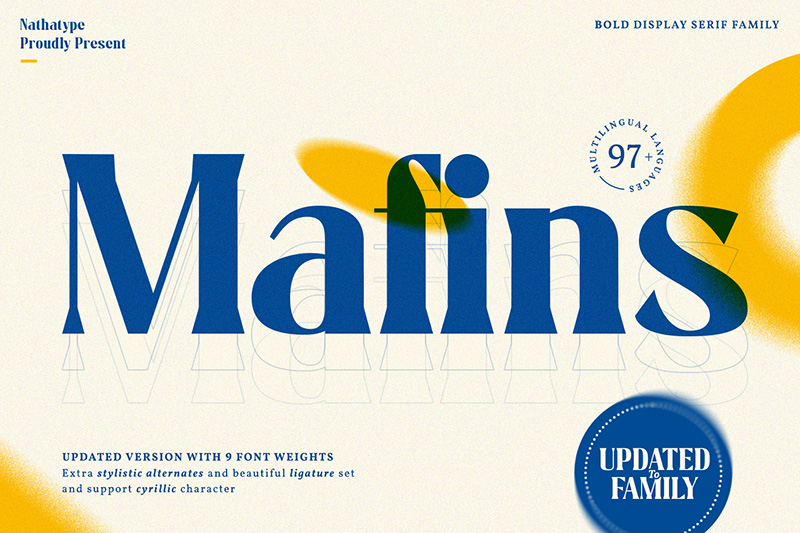
The strong contrast between thick and thin lines gives a dramatic appearance, while the small serif ends of the letters provide an elegant yet modern impression, making it one of the best bold display fonts for posters to highlight the main message. Mafins features stylistic sets, offering more varied letterforms and ligatures for more natural letter combinations. This font works perfectly for various design needs, including posters, logos, banners, magazine covers, printed products, and social media content.
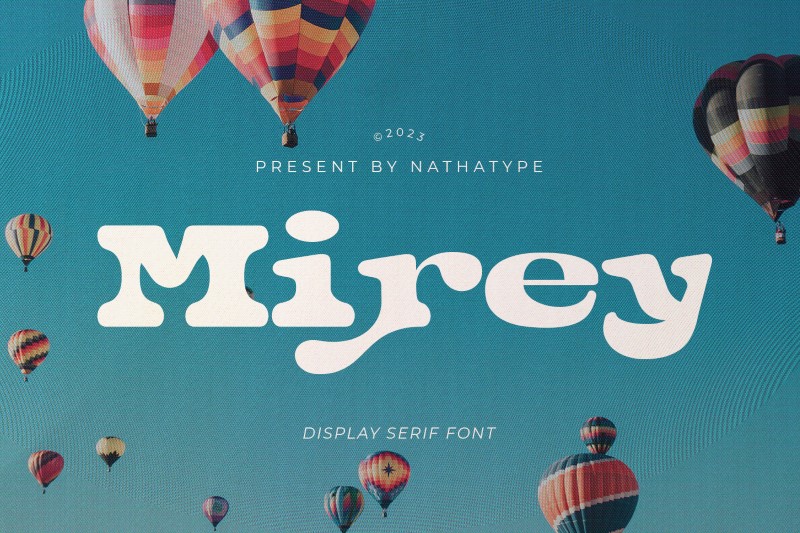
If you are looking for a font with a playful or casual vibe but that still maintains its modern and artistic look, then you must try Mirey. It is a display serif font with thick letterforms and smooth, rounded edges. As a result, this font looks playful and modern yet elegant at the same time, making any design that uses it feel more expressive. Mirey is suitable for titles, posters, branding, or visually strong and expressive designs.
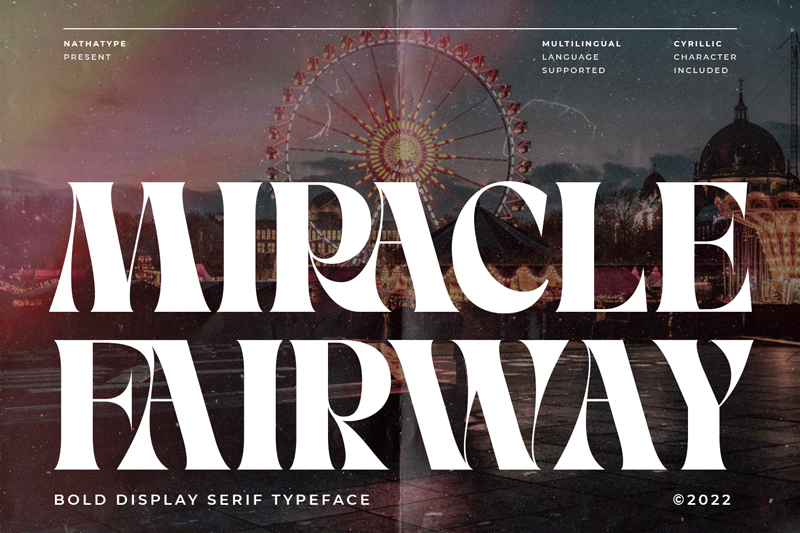
Miracle Fairway is a bold display serif font with contrasting letterforms. This font draws inspiration from the modern Art Deco style, showcasing a distinctive and striking character. This font, which includes ligature capabilities and multilingual support, is adaptable to meet global design needs. Because of its legibility, Miracle Fairway works well for large text such as headlines, posters, logos, or main visual elements that require a powerful and engaging appearance.
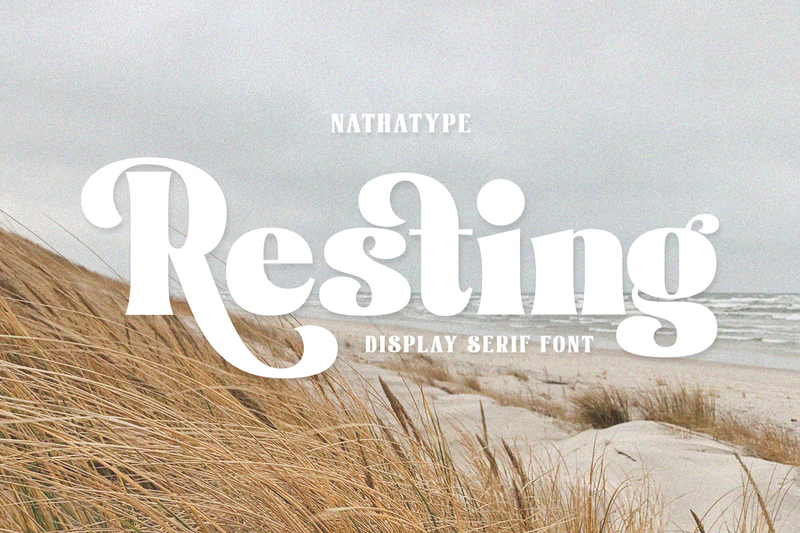
Resting is one of our top bold display fonts for posters that is ready to make your designs more vibrant, stand out, and last for a long time. Some of its letters adorned with unique decorative details provide a balance between a bold and flexible impression. This font is perfect for café posters, coffee shops, community events, casual branding, packaging, quotes, and social media designs.
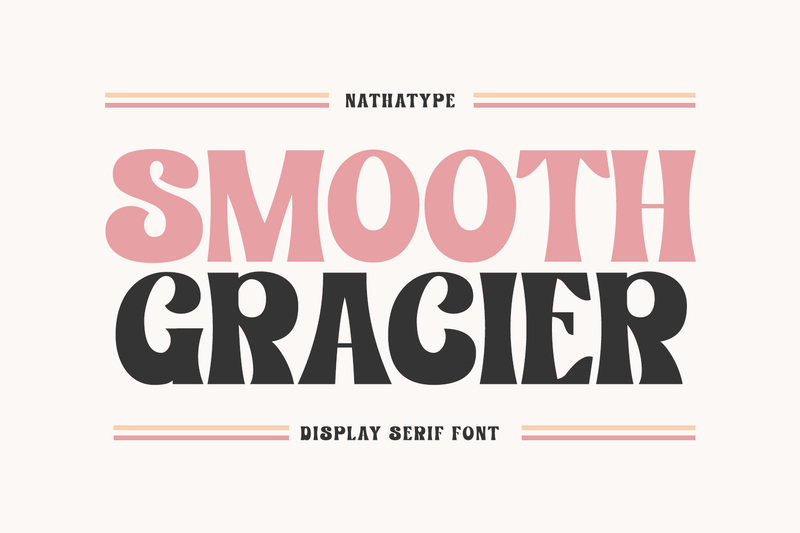
Smooth Gracier, like its name, radiates smoothness with its big and blocky letterforms, giving each character a retro vibe. Aside from that, the distinctive serif cuts and line contrast in the letters make it visually appealing. Smooth Gracier is adaptable to a wide range of design projects thanks to its stylistic sets and multilingual support. Smooth Gracier is perfect for retro posters, music designs, events, festivals, and humorous food and beverage branding, such as soda, snacks, and cookies.
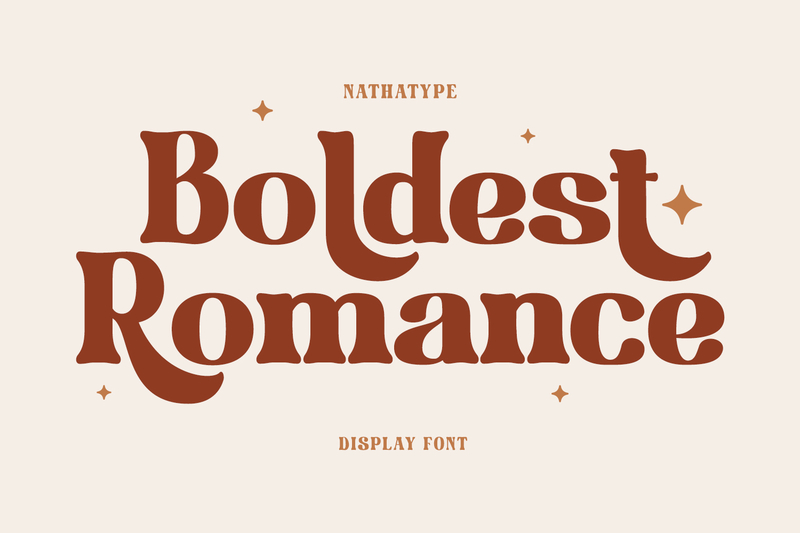
The next font in this list of bold display fonts for posters is Boldest Romance. It is a font with a casual vibe full of decorative characters. Boldest Romance is bold and dramatic, yet still looks artistic, as it has a retro-modern touch. As its name suggests, Boldest Romance brings a warm, relaxed, and slightly vintage vibe while also conveying a romantic impression. This font is also suitable for designs, such as branding, posters, banners, and logos, that want to appear friendly and playful yet still have a strong character.
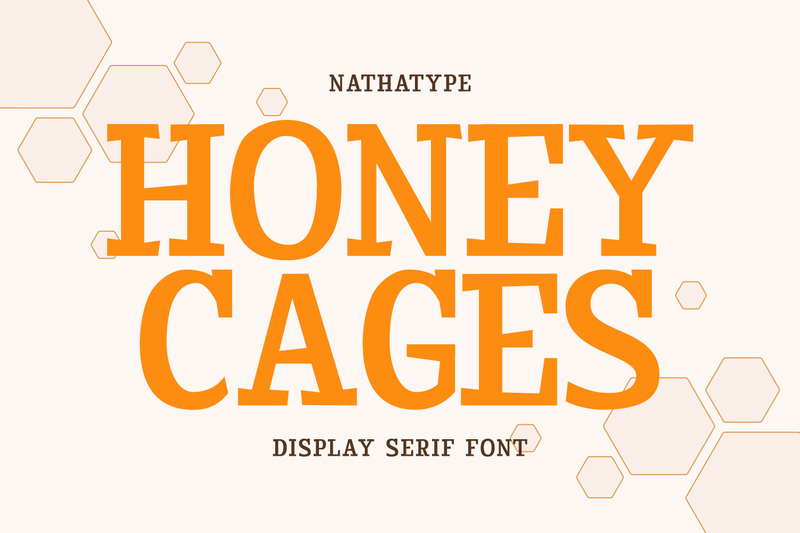
Among all the bold display fonts for posters, Honey Cages is a display serif font with a friendly, expressive, yet firm vibe at the same time. Additionally, Honey Cages has balanced letter proportions in shapes and consistent height and width, creating a simple, easy-to-read, bold, and professional appearance. Equipped with stylistic sets, ligatures, and multilingual support, Honey Cages offers extensive flexibility for various design needs.
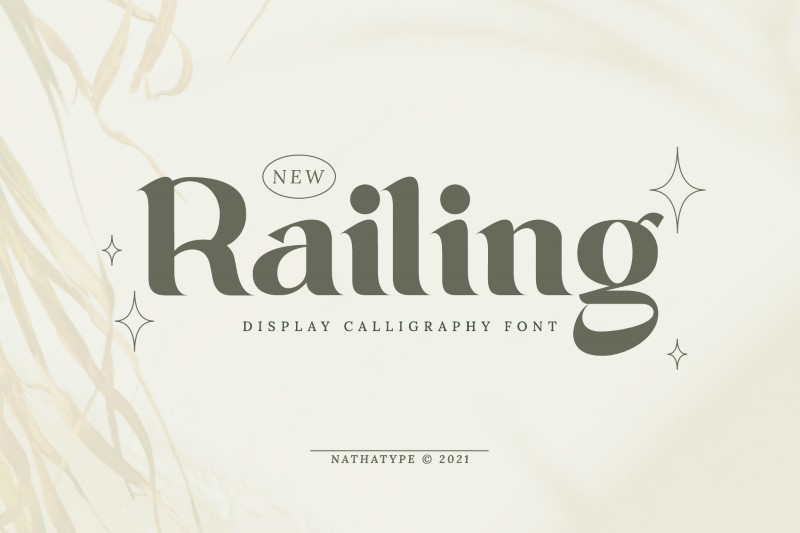
With the right font selection, posters become not just promotional tools but also powerful and impactful communication mediums. Experimenting with the list of 15 bold display fonts for posters above will help your poster stand out, look professional, and be full of character, which will have an impact on the audience.